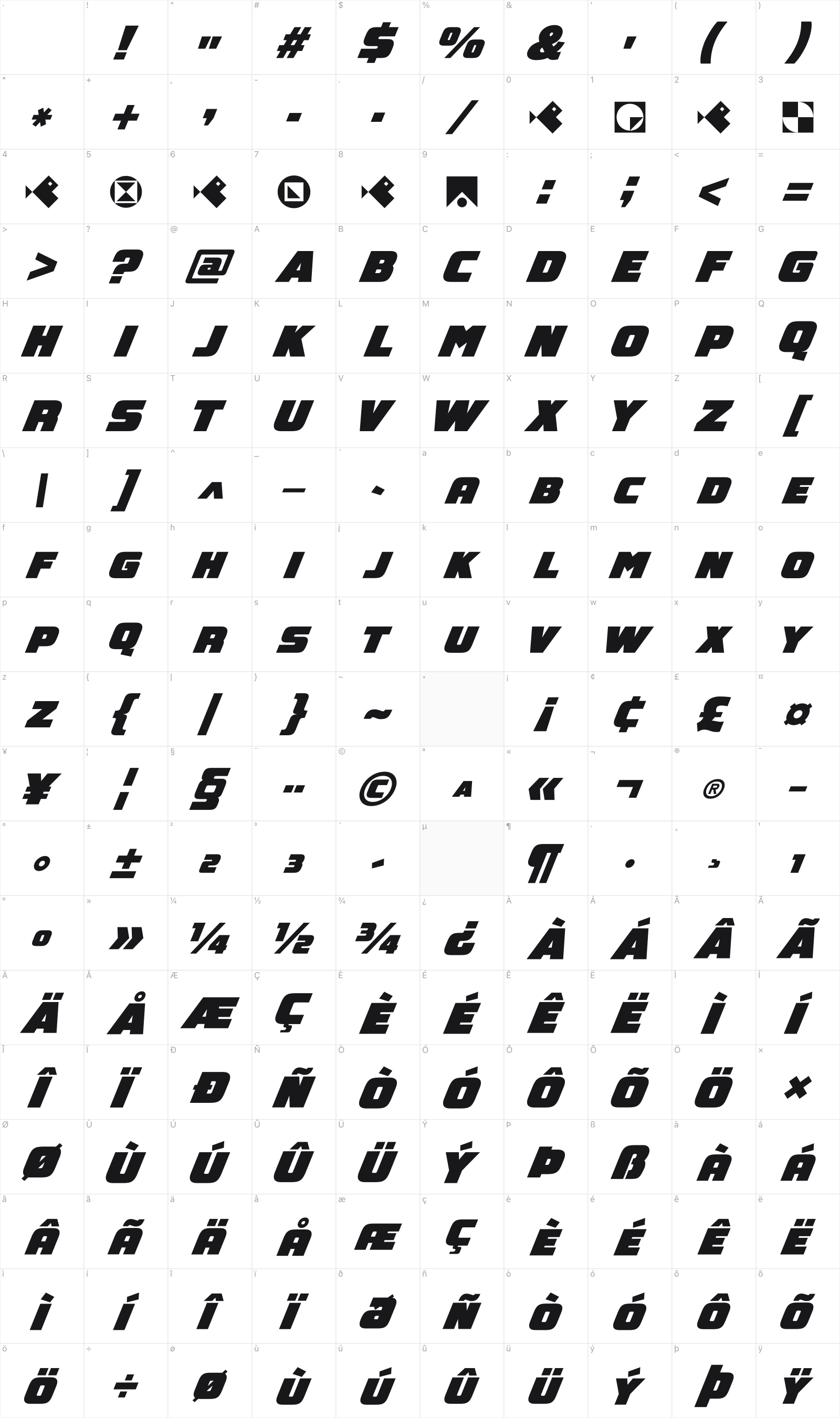
Geospeed SC
Geospeed SC is a bold condensed geometric sans locked into a 22-degree forward slant that reads as pure momentum. The small caps construction gives it structural density, while chamfered details and a tight monoweight stroke keep it feeling technical and contemporary. Built for advertising, posters, and anywhere a design needs to feel like it's moving.